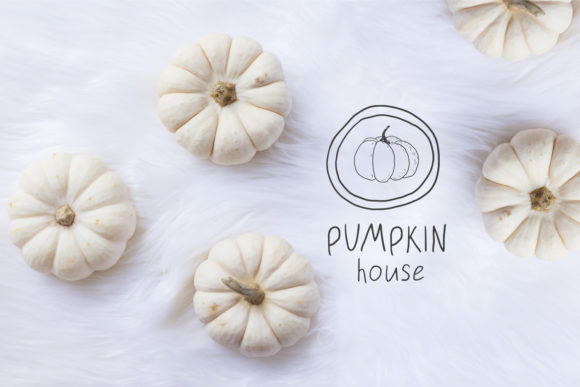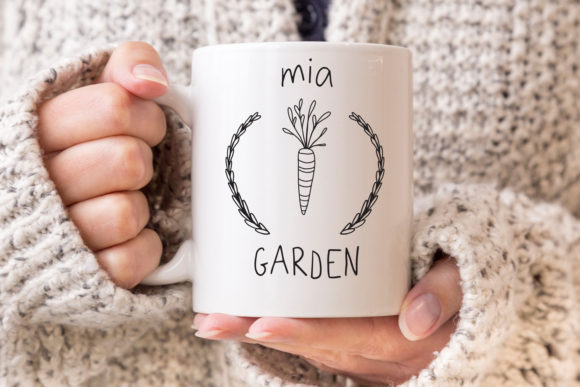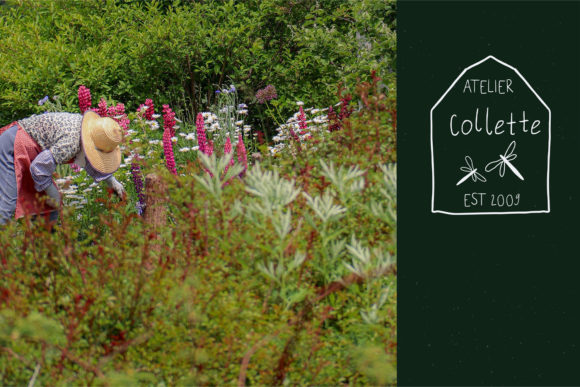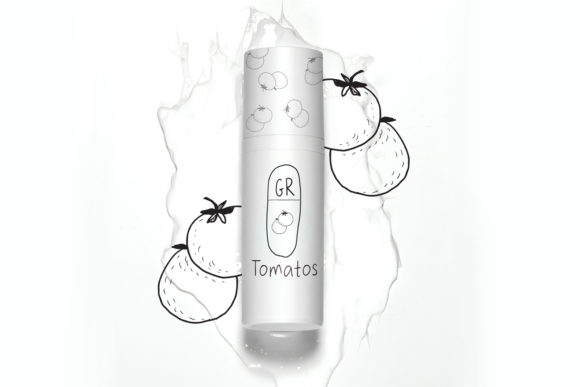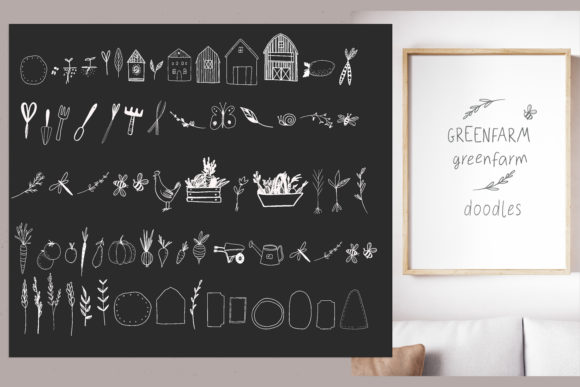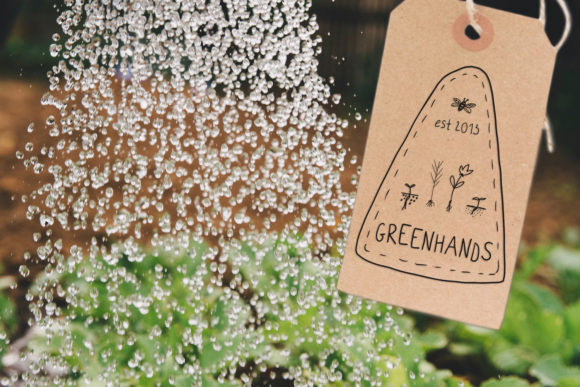
Introducing Green Farm Font: The Perfect Handwritten Font for Eco-Friendly Designs
Are you a designer or crafter looking for a font that captures the essence of nature and sustainability? Look no further than the Green Farm Font, a cute and simple handwritten font that’s ideal for bio food production or ecological farm designs. In this article, we’ll explore the features and benefits of Green Farm Font, and why it’s the perfect choice for your next project.
The Charm of Green Farm Font
Green Farm Font is a beautiful, handwritten font that’s reminiscent of a rustic, country feel. Its natural and delicate appearance makes it perfect for designs that require a touch of whimsy and charm. The font’s simplicity and elegance ensure that it can be used for a wide range of applications, from logos and branding to packaging and advertising.
Key Features of Green Farm Font
- Cute and Simple Design: Green Farm Font features a cute and simple design that’s easy to read and recognize.
- Handwritten Style: The font’s handwritten style gives it a personal and friendly feel that’s perfect for eco-friendly designs.
- Natural and Delicate: The font’s natural and delicate appearance makes it ideal for designs that require a touch of elegance and sophistication.
- Versatile: Green Farm Font can be used for a wide range of applications, from logos and branding to packaging and advertising.
Why Choose Green Farm Font?
So, why should you choose Green Farm Font for your next project? Here are just a few reasons:
- Perfect for Eco-Friendly Designs: Green Farm Font is specifically designed for eco-friendly designs, making it the perfect choice for bio food production or ecological farm designs.
- Easy to Read: The font’s simple and clear design makes it easy to read, even at small sizes.
- Unique and Creative: Green Farm Font is a unique and creative font that will help your designs stand out from the crowd.
- Great for Branding: The font’s elegant and sophisticated appearance makes it perfect for branding and logo design.
How to Use Green Farm Font
Green Farm Font is easy to use and can be applied to a wide range of designs. Here are a few ideas to get you started:
- Logos and Branding: Use Green Farm Font to create a unique and memorable logo for your eco-friendly business.
- Packaging Design: Add a touch of elegance and sophistication to your packaging design with Green Farm Font.
- Advertising: Use Green Farm Font in your advertising materials to create a friendly and approachable tone.
- Social Media Graphics: Add a personal touch to your social media graphics with Green Farm Font.
Tips and Tricks for Working with Green Farm Font
Here are a few tips and tricks to help you get the most out of Green Farm Font:
- Pair with Other Fonts: Experiment with pairing Green Farm Font with other fonts to create a unique and interesting look.
- Use Different Colors: Try using different colors to add a pop of color to your design.
- Experiment with Sizes: Experiment with different font sizes to create visual interest and hierarchy.
In conclusion, Green Farm Font is a beautiful and versatile font that’s perfect for eco-friendly designs. Its natural and delicate appearance makes it ideal for bio food production or ecological farm designs. With its cute and simple design, Green Farm Font is sure to add a touch of charm and elegance to your designs. So why not give it a try and see how it can elevate your designs to the next level?